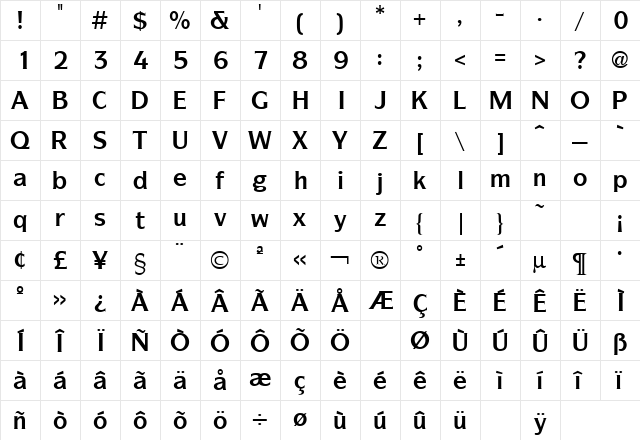
Symbol ITC Bold
Design Context for Symbol ITC Typeface
Symbol ITC offers clean, dependable letterforms without strong stylistic allegiance, making it a practical choice for designers who need flexibility. The heavy weight commands attention and anchors typographic hierarchies.